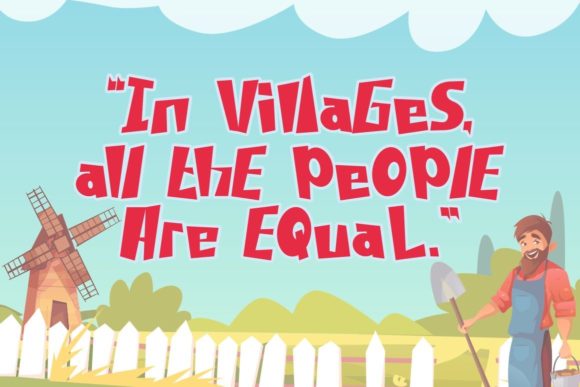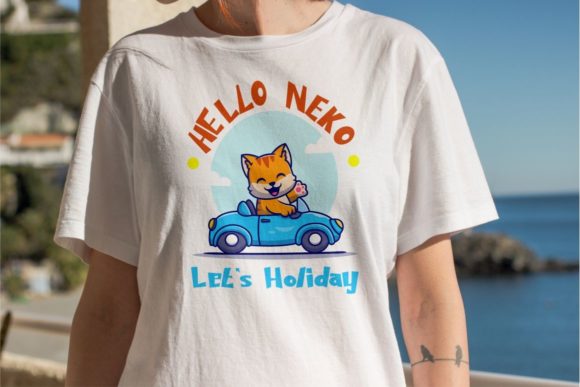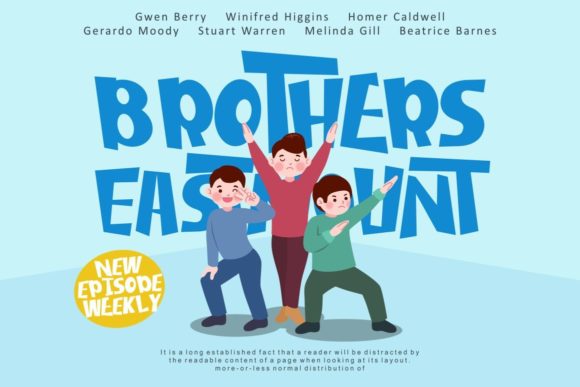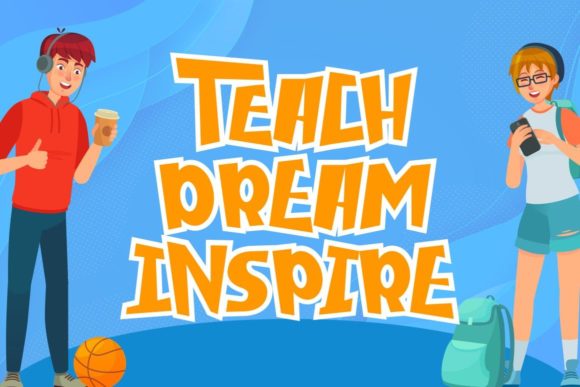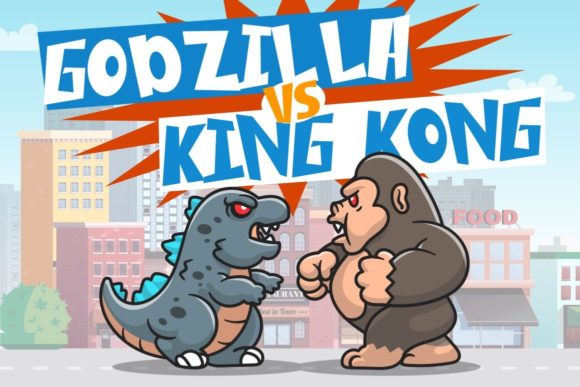
Introduction to Dizzy Fence Font
Dizzy Fence is a fun and cartoon-like display font.
This font is PUA encoded which means you can access all of the glyphs and swashes with ease Fall in love with its incredibly versatile style and use it to create spectacular designs.
Key Features of Dizzy Fence Font